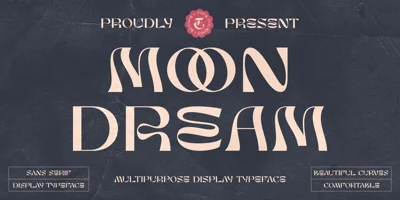
Moon Dream Font
Usage Examples: Moon Dream Font is perfect for modern branding, eye-catching posters, logo designs, and stylish magazine layouts.
Why It’s Exciting: Its wide, sans-serif design with smooth, rounded curves offers a friendly yet futuristic vibe, ideal for bold, creative projects.
Font Families: Moon Dream Font includes Regular, Alternate, and Ligature variants, providing flexibility for diverse design needs.
Enhance your projects with Moon Dream Font! This wide sans-serif typeface, with its beautiful curves and rounded ends, exudes comfort and modernity, making it a standout choice for branding, signage, and digital content. Its unique glyphs and ligature features add a distinctive touch to any design. Download Moon Dream Font now to explore its artistic potential, but secure a commercial license for professional use. With Regular, Alternate, and Ligature options, this font adapts seamlessly to various creative contexts, ensuring both readability and visual appeal. Boost your brand’s presence with this versatile, modern typeface today